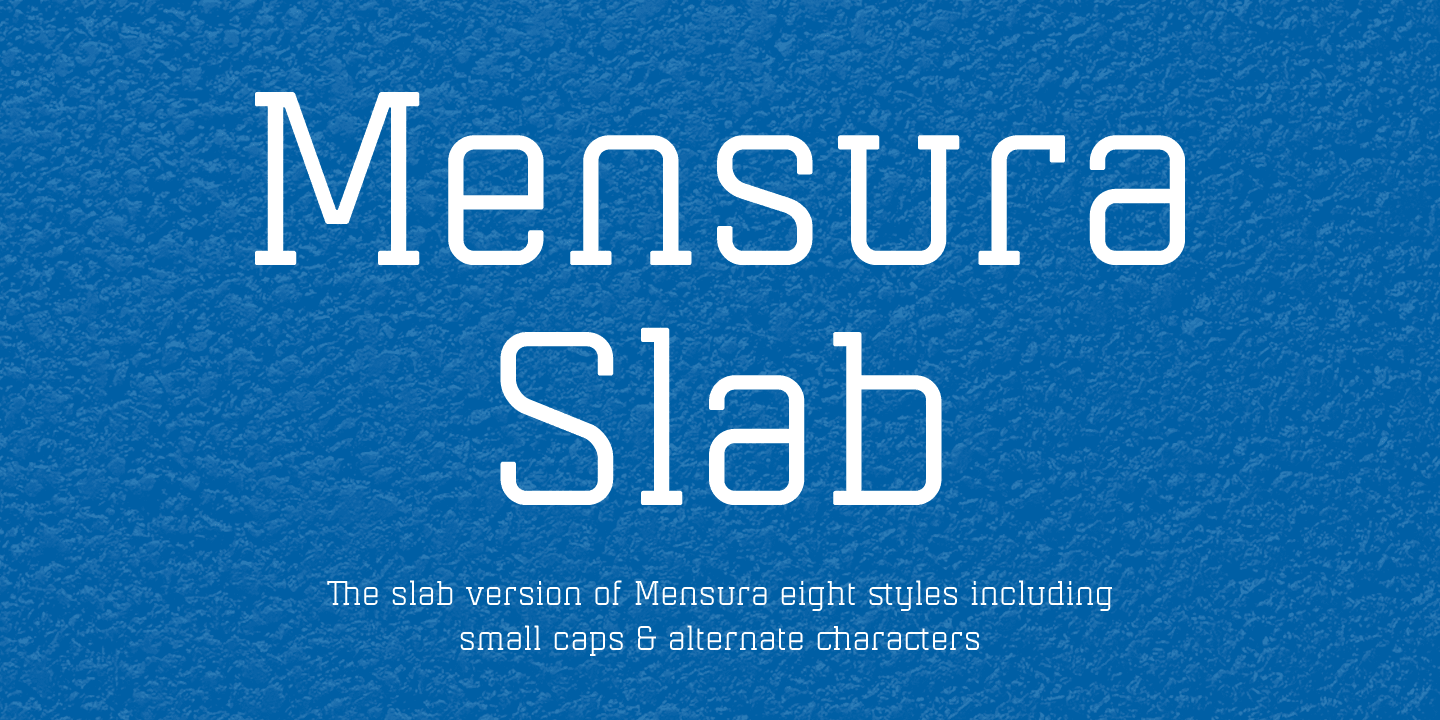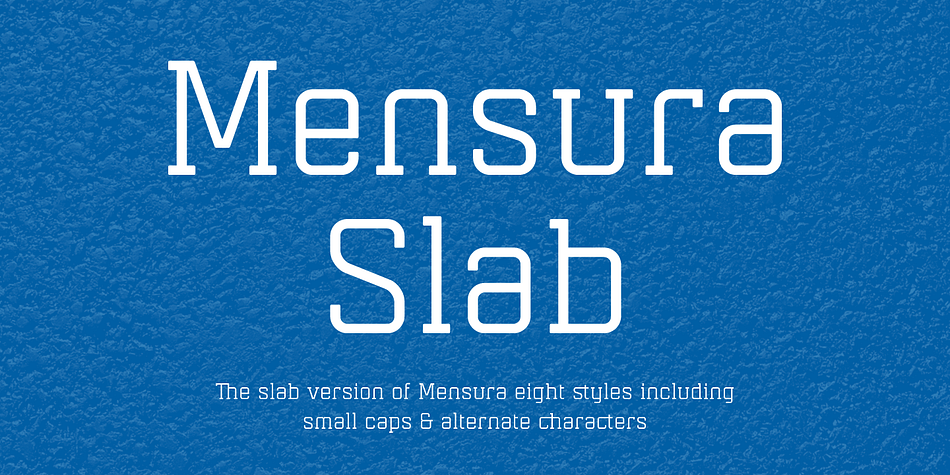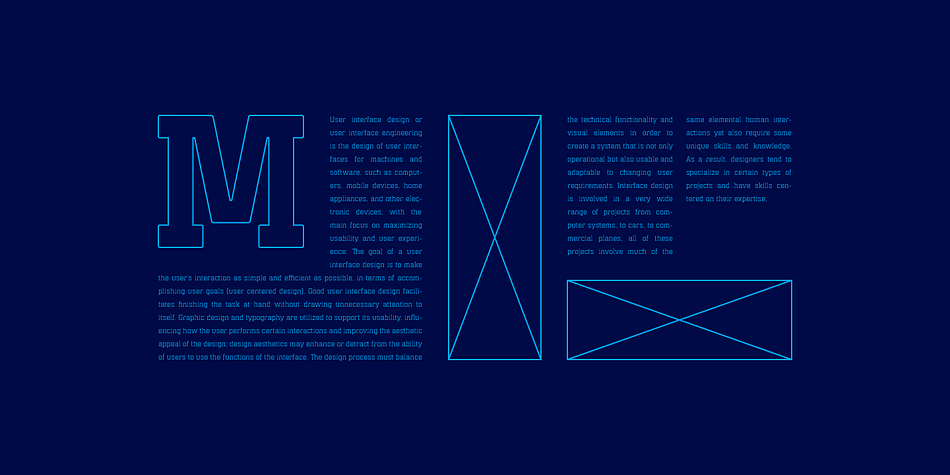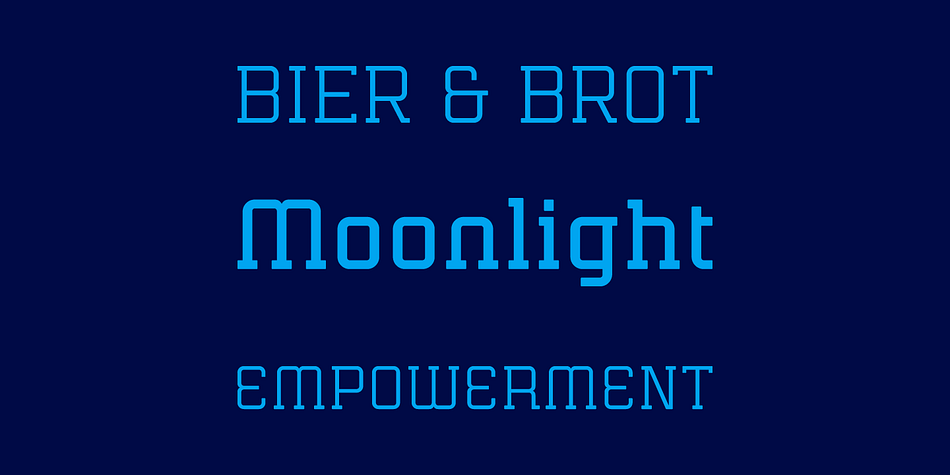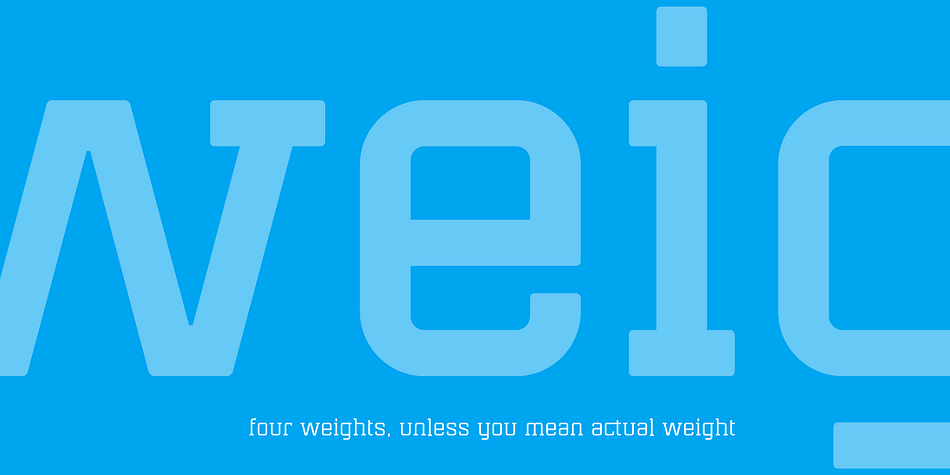
Mensura Slab is a slab serif font family. This typeface has eight styles and was published by Graviton.
Mensura Slab font family has been designed for Graviton Font Foundry by Pablo Balcells in 2013. It is a modular, geometric typeface with subtle rounded angles that provides a soft, pleasant appearance. It has been conceived to be primarily a display typeface, but given its clarity it can also be used for composing short and intermediate length texts.
Mensura Slab consists of 8 styles and 4 weights plus italics. Each containing small caps and several alternate characters.